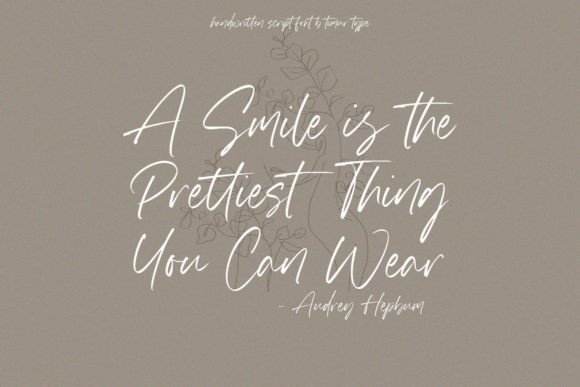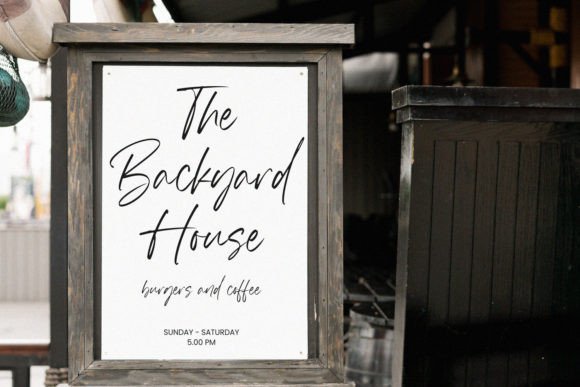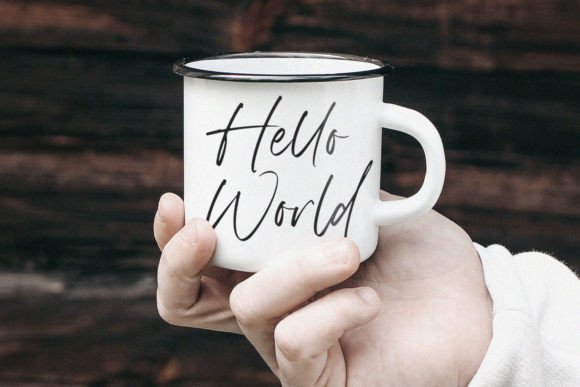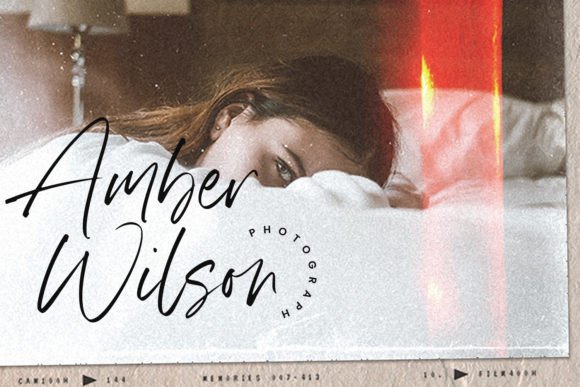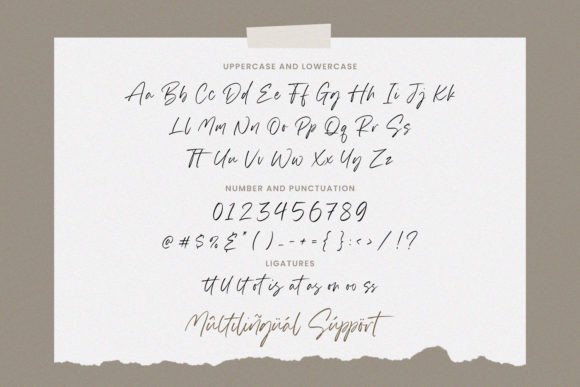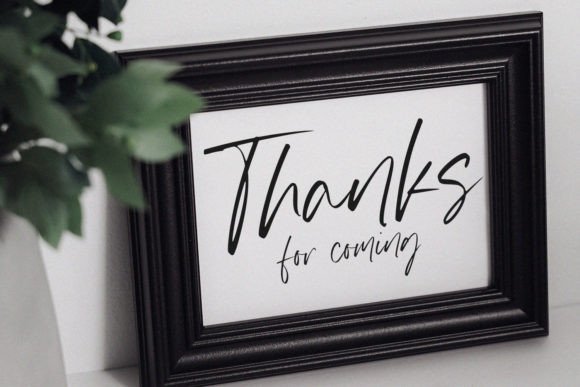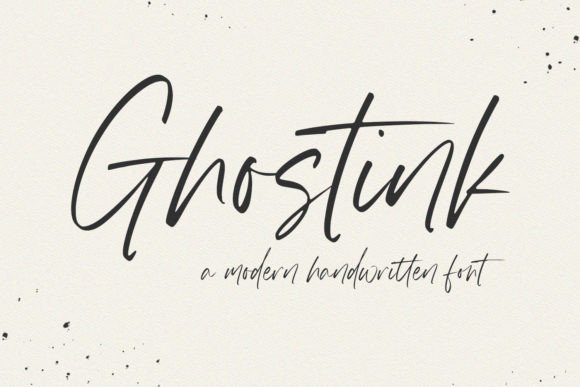
Gohstink Font: A Charming and Elegant Handwritten Font
Are you a designer or crafter looking for a unique and elegant font to add a personal touch to your designs? Look no further than the Gohstink font. This beautiful handwritten font is perfect for a variety of design projects, from wedding invitations and thank you cards to quotes, greeting cards, logos, and business cards.
The Charm of Gohstink Font
Gohstink font feels equally charming and elegant, making it an excellent choice for designers who want to add a touch of sophistication to their work. The font’s handwritten style gives it a warm and inviting feel, perfect for creating designs that are both personal and professional.
Uses for Gohstink Font
One of the best things about Gohstink font is its versatility. It can be used for a wide range of design projects, including:
- Wedding invitations: Add a touch of elegance to your wedding invitations with Gohstink font.
- Thank you cards: Show your appreciation with beautifully designed thank you cards featuring Gohstink font.
- Quotes: Make your quotes stand out with the charming and elegant Gohstink font.
- Greeting cards: Create personalized greeting cards for any occasion with Gohstink font.
- Logos: Add a touch of sophistication to your logo with Gohstink font.
- Business cards: Stand out from the crowd with beautifully designed business cards featuring Gohstink font.
Why Choose Gohstink Font?
So, why choose Gohstink font for your design projects? Here are just a few reasons:
- Unique and elegant: Gohstink font is a one-of-a-kind font that adds a touch of elegance to any design.
- Handwritten style: The font’s handwritten style gives it a warm and inviting feel, perfect for creating personal and professional designs.
- Versatile: Gohstink font can be used for a wide range of design projects, from wedding invitations to logos and business cards.
- Easy to read: Despite its elegant style, Gohstink font is easy to read, making it perfect for designs that require a clear and concise message.
Tips for Using Gohstink Font
Here are a few tips for using Gohstink font in your design projects:
- Pair with other fonts: Gohstink font pairs well with other fonts, so don’t be afraid to experiment with different combinations.
- Use for headings and titles: Gohstink font is perfect for headings and titles, where its elegant style can really shine.
- Add a personal touch: Use Gohstink font to add a personal touch to your designs, making them more unique and special.
In conclusion, Gohstink font is a charming and elegant handwritten font that is perfect for designers and crafters looking to add a personal touch to their designs. Its versatility, unique style, and ease of use make it an excellent choice for a wide range of design projects. Whether you’re creating wedding invitations, thank you cards, quotes, greeting cards, logos, or business cards, Gohstink font is sure to make your designs stand out.
So, why not give Gohstink font a try? With its beautiful handwritten style and endless uses, it’s sure to become a favorite in your design arsenal.